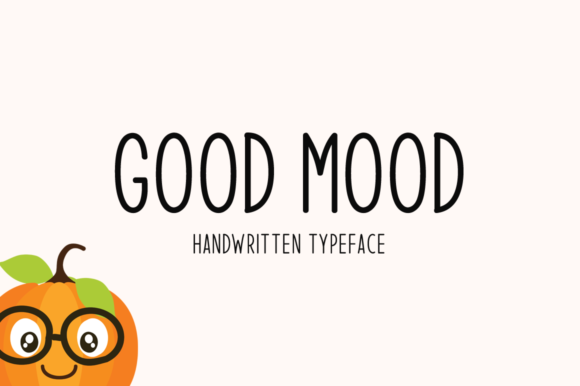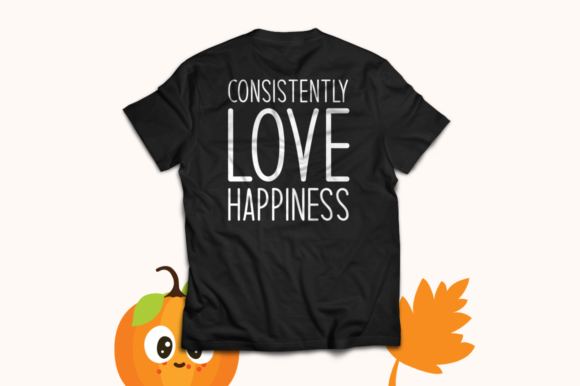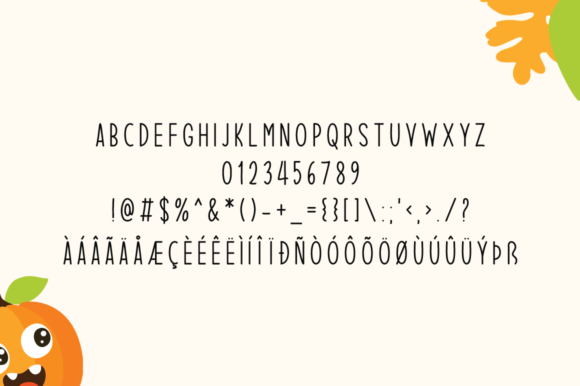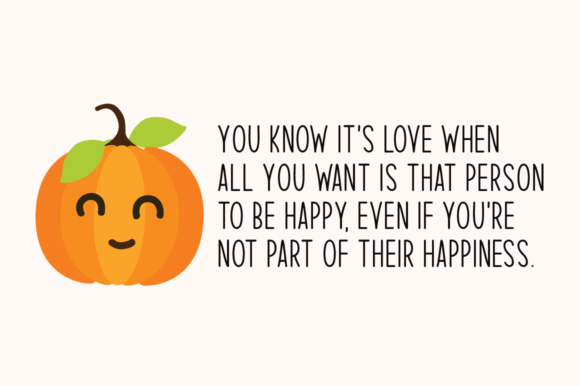
Good Mood Font
About Good Mood Font
Good Mood is a simple and natural handwritten font. Thin and casual, this font will greatly complement each of the design ideas you wish to bring to life!